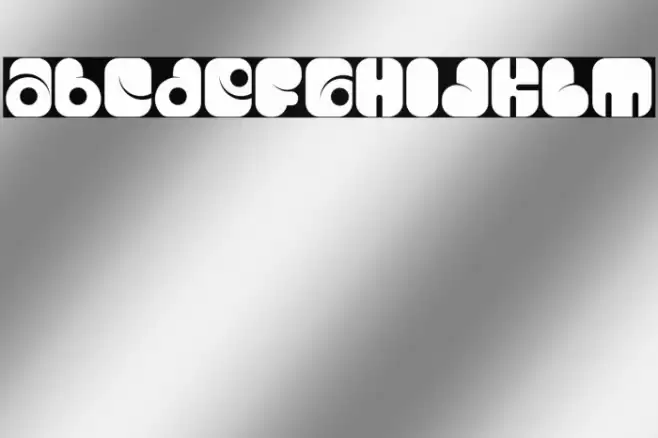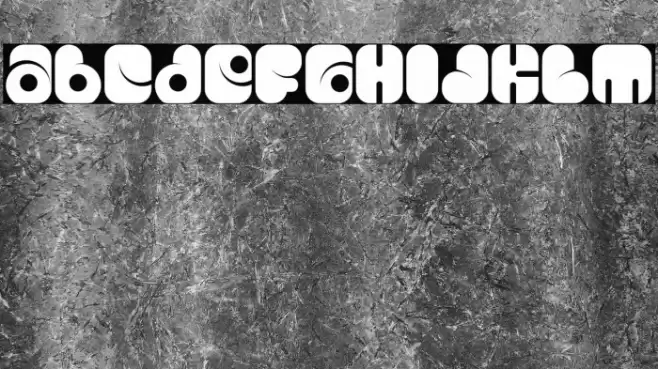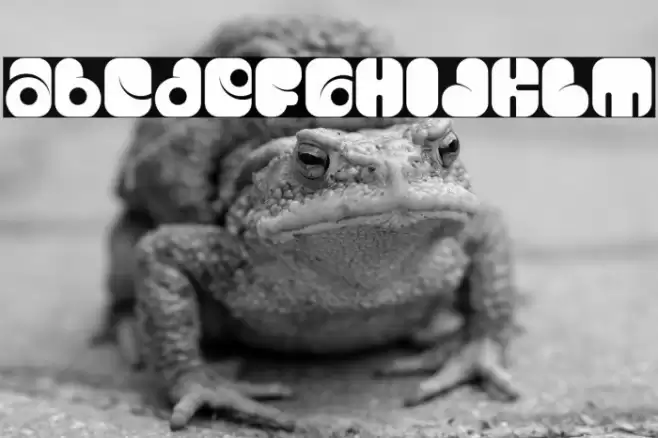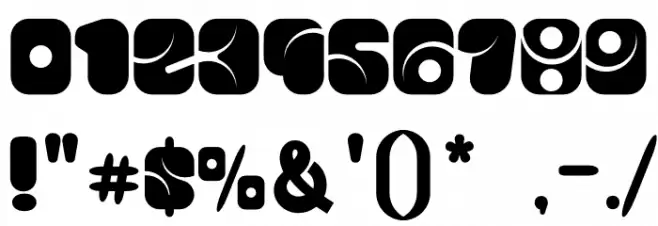
Capsule Robot Font
Capsule Robot Description
This font features a bold, futuristic design with a distinctly geometric and modular appearance. Each character is crafted with a capsule-like shape, creating a cohesive and modern aesthetic. The letters are uniformly thick, with rounded edges that add a playful yet sophisticated touch. The font's unique style is characterized by its high contrast between the solid, filled areas and the negative space, making it highly legible and visually striking. The numbers and special characters maintain the same design principles, ensuring consistency across all glyphs. This font is ideal for projects that require a modern and innovative look, such as tech branding, futuristic posters, and digital interfaces.
A bold, futuristic font with geometric, capsule-shaped characters and high contrast from Uncategorized fonts.
- Proposed Projects: Tech branding, futuristic posters, digital interfaces, modern advertisements.